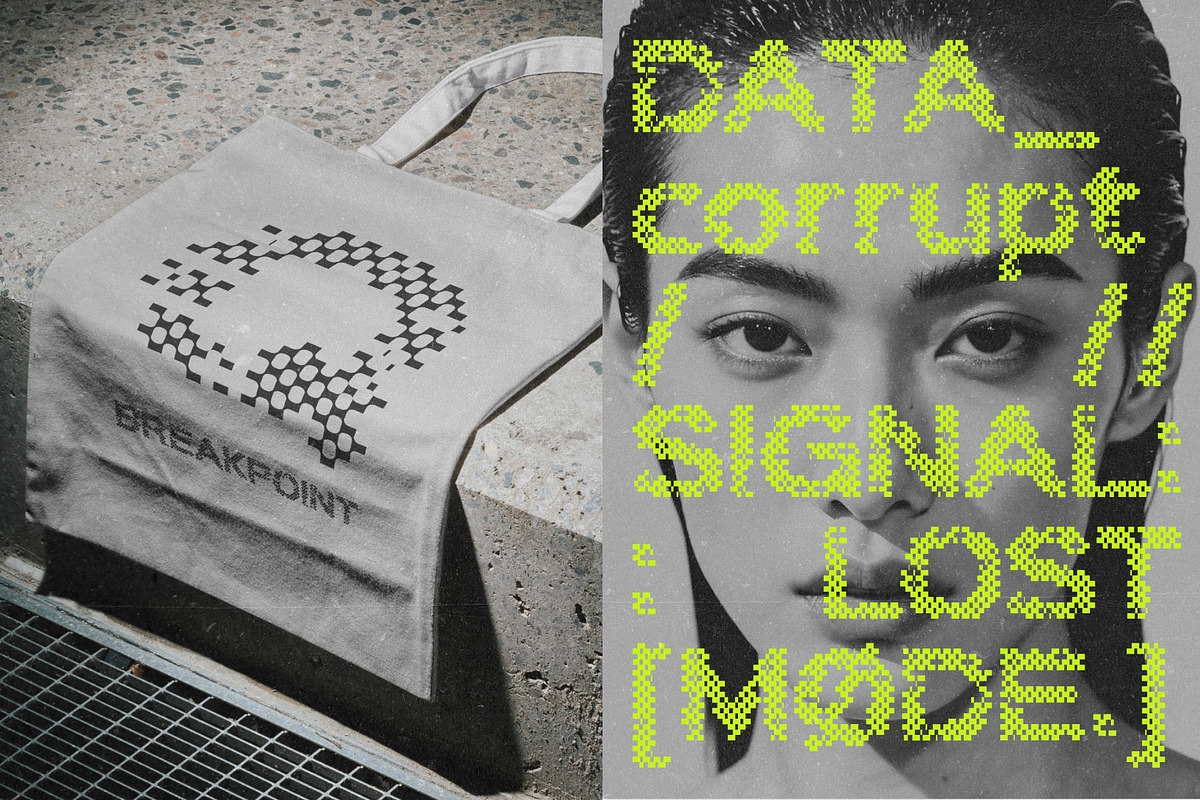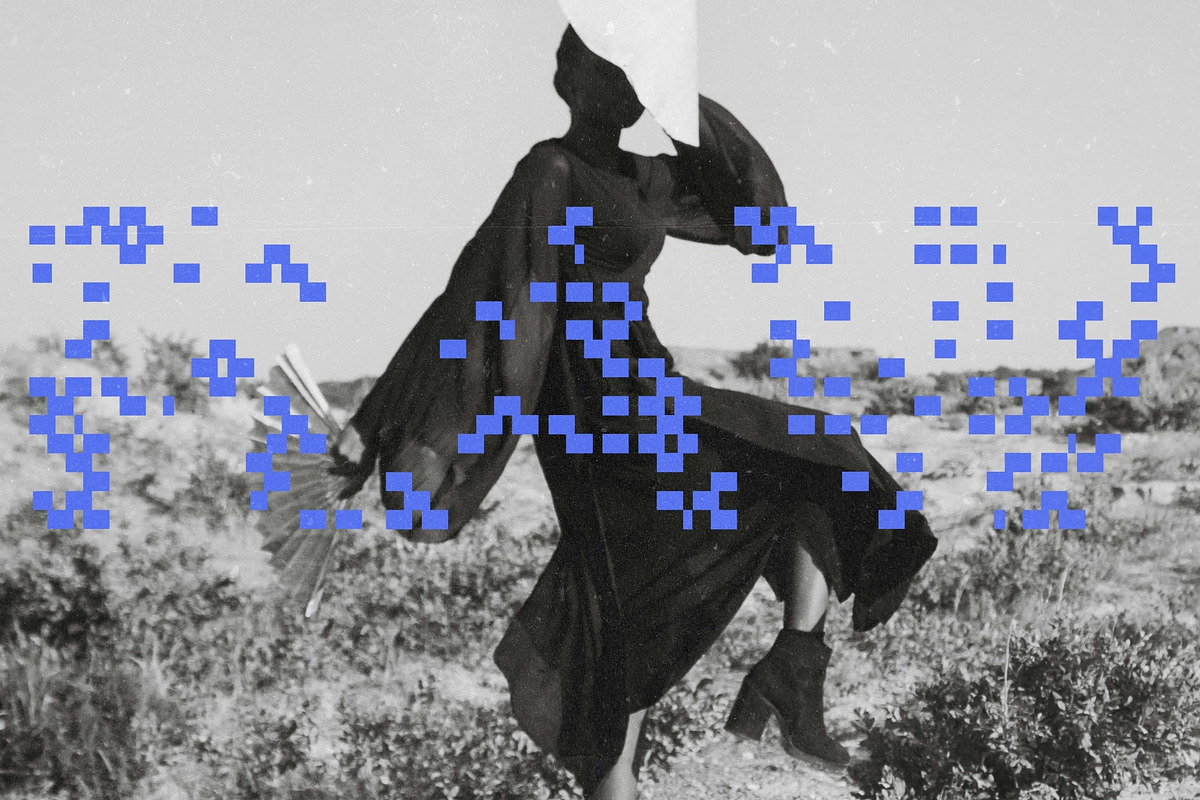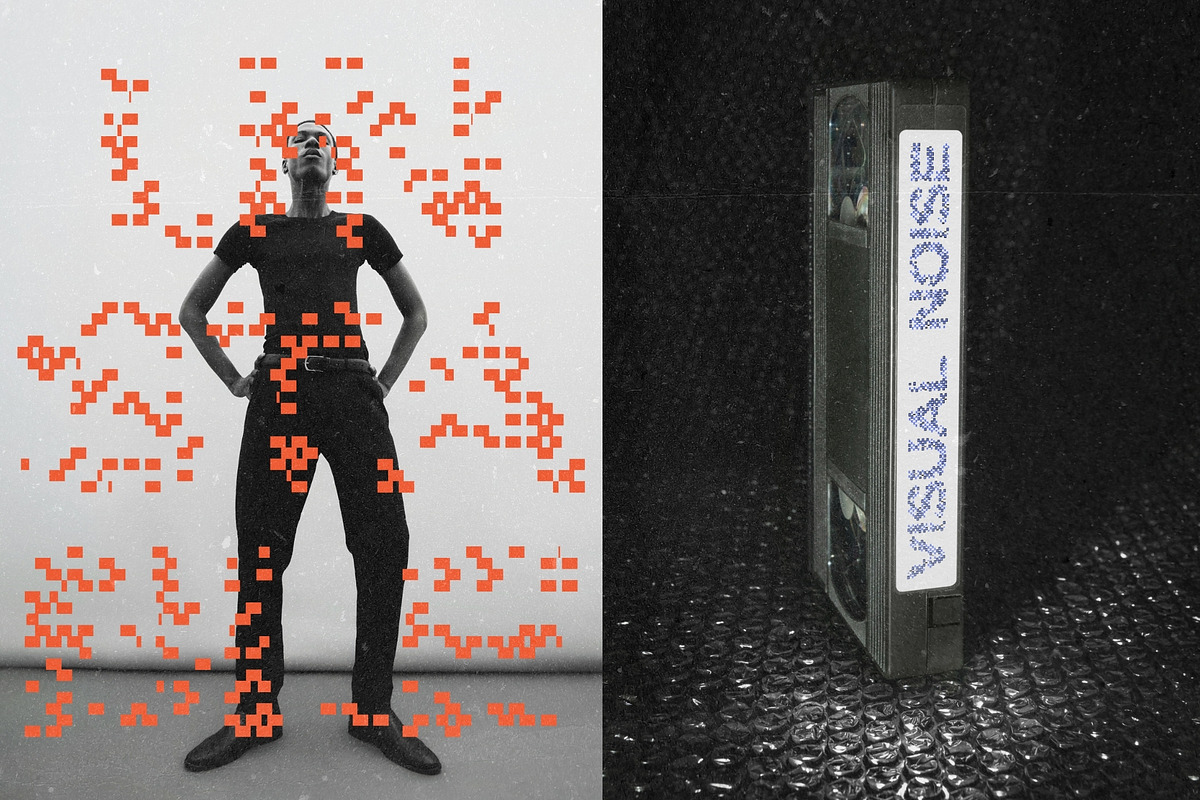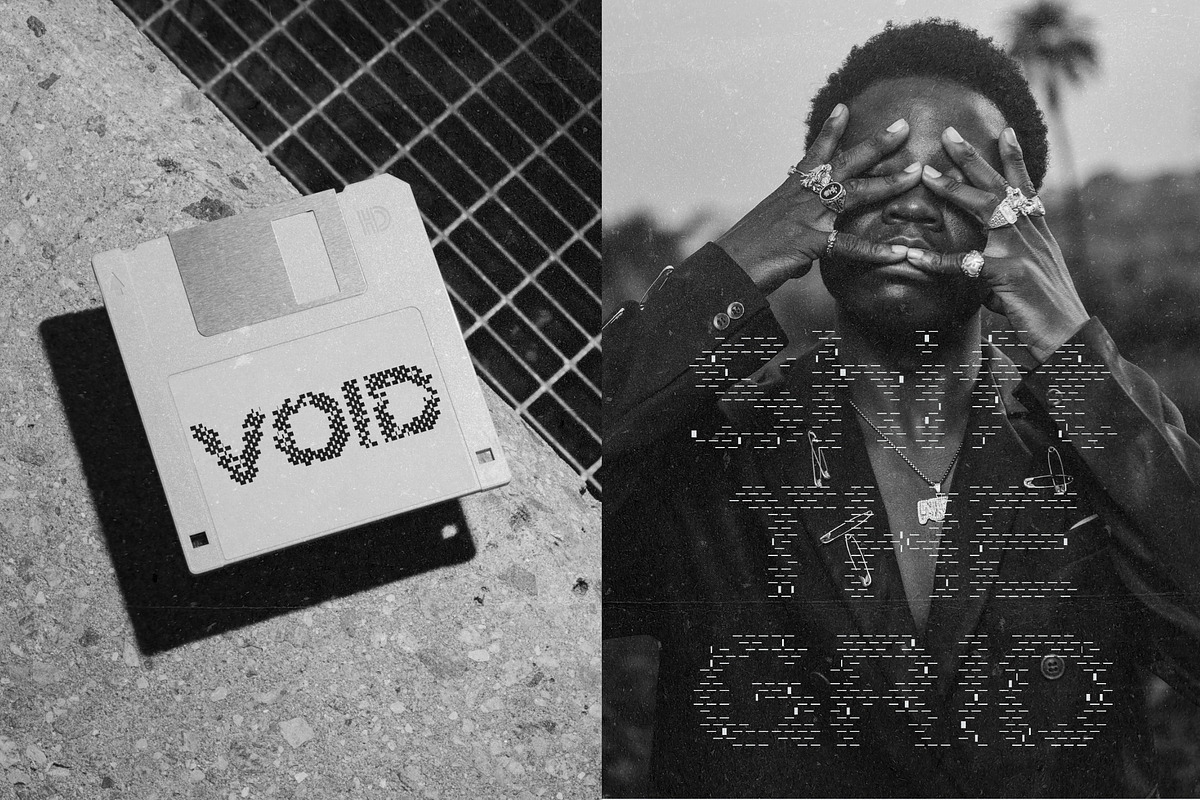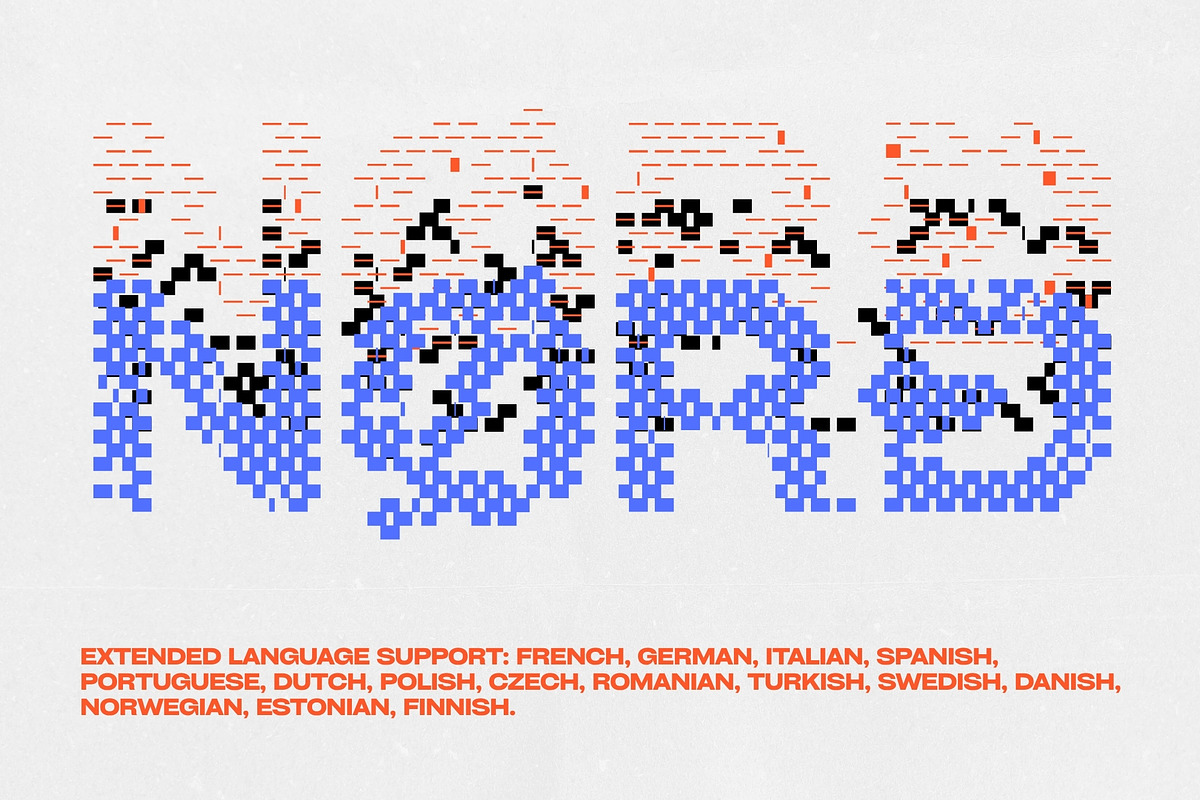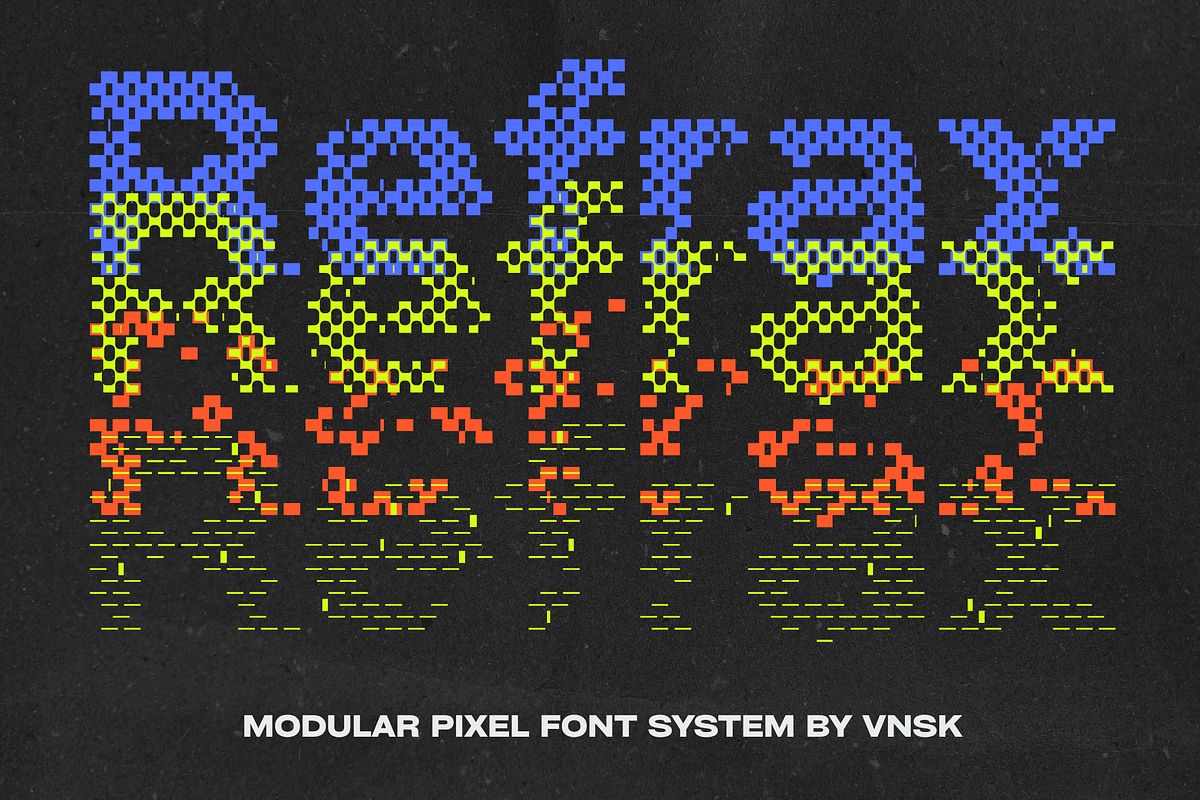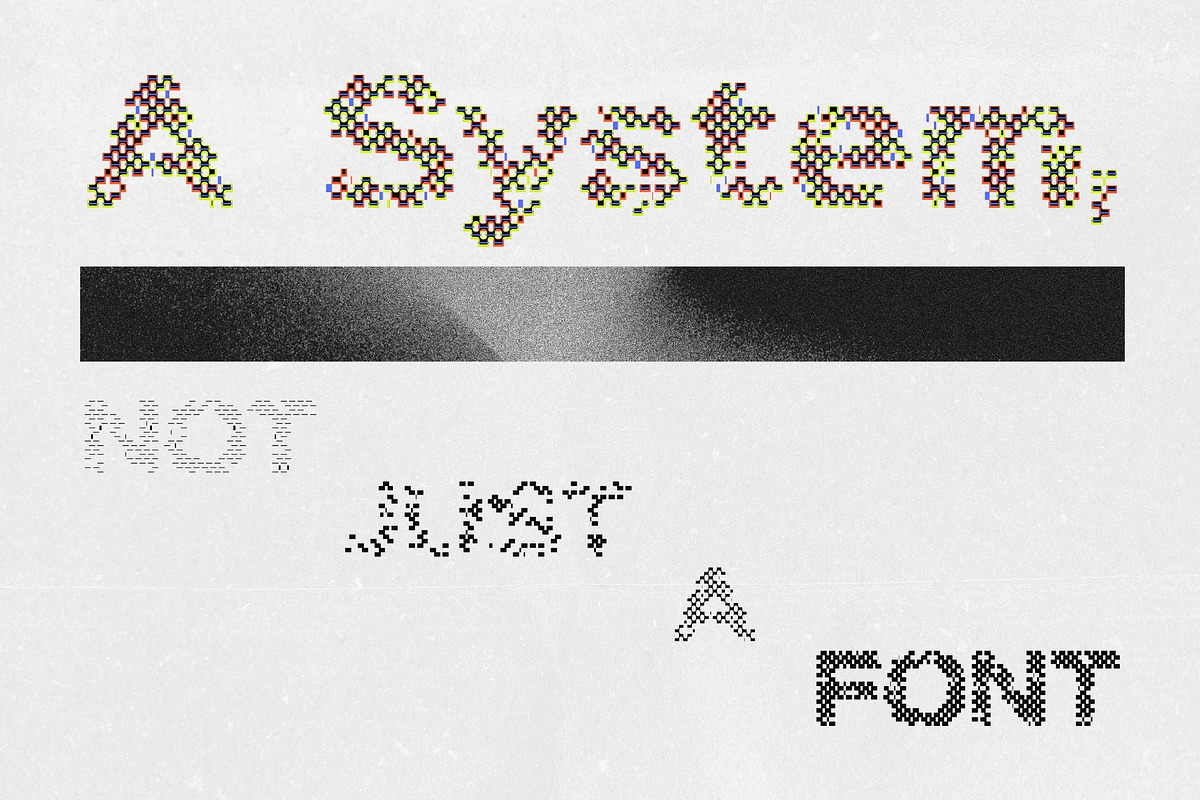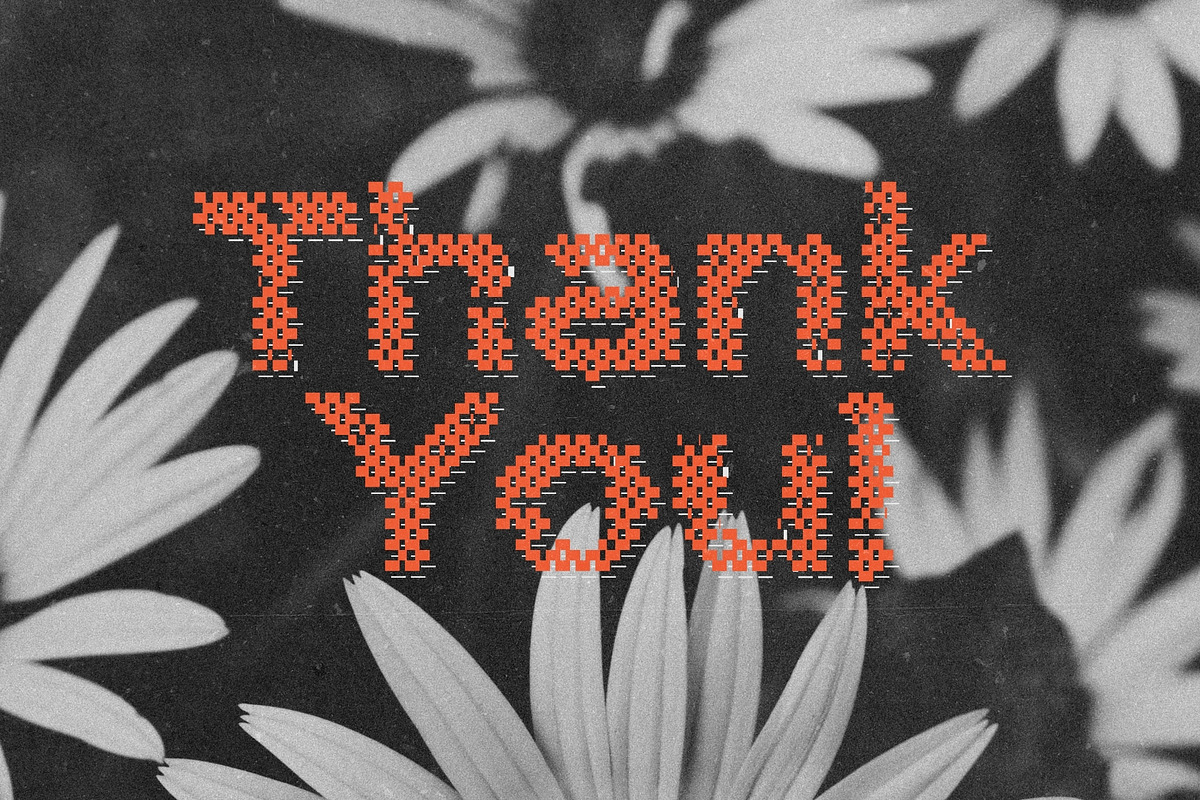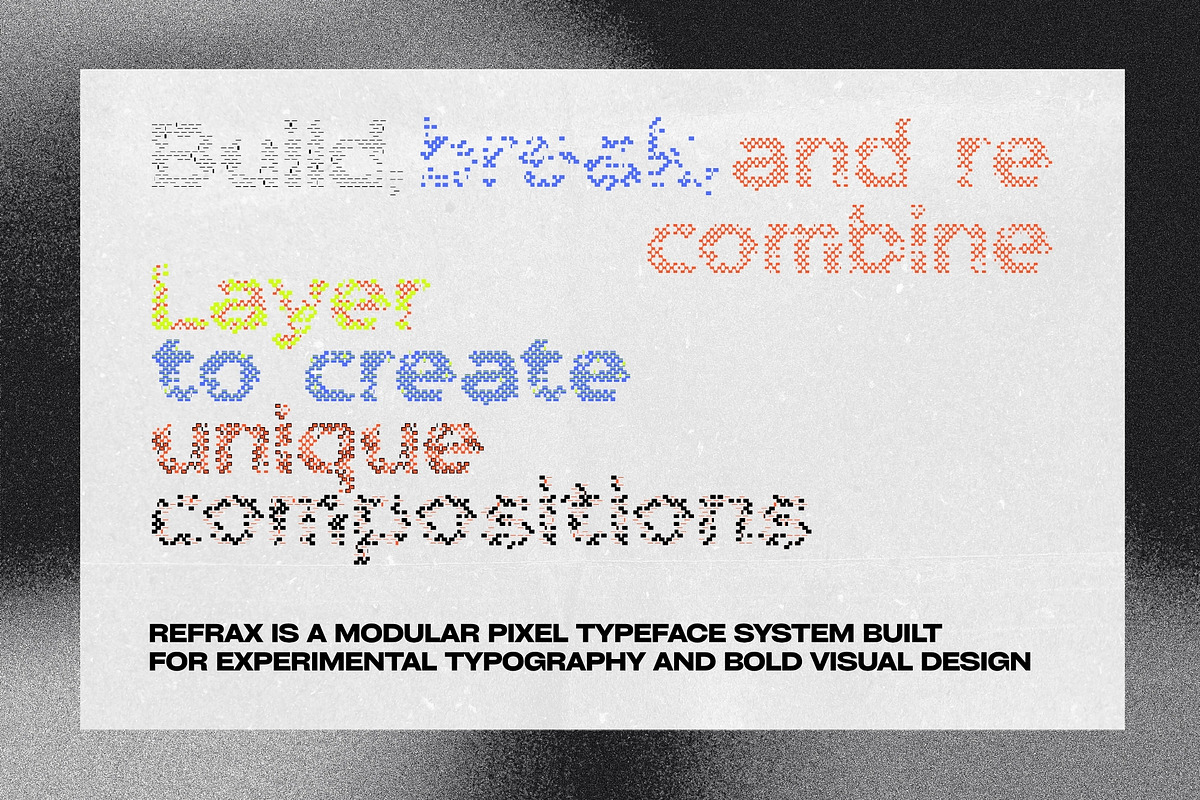
Refrax: Modular Pixel Font System
Refrax is a modular pixel typeface system built for experimental typography and bold visual design. Refrax offers 4 distinct structures: Regular, Fragment, Grid, and Line, designed to be used independently or combined into layered compositions.
Each style explores a different interpretation of pixel form: from solid blocks to scattered fragments, mesh grids, and linear scan-like structures. Together, they form a flexible system that allows the creation of unique typography, distortions, and visual rhythms.
Refrax is perfect for creating expressive, high-impact visuals, from posters and editorial layouts to branding, album covers, and digital graphics.
✦Features:
Uppercase & lowercase letters
Numbers, Punctuation, and Multilingual support
4 modular styles: Regular, Fragment, Grid, Line
Pixel-based construction
Strong visual identity
✦Perfect For:
Poster design
Editorial layouts
Album covers & music visuals
Fashion graphics
Branding & visual identity
Social media design
Digital collage & typography experiments